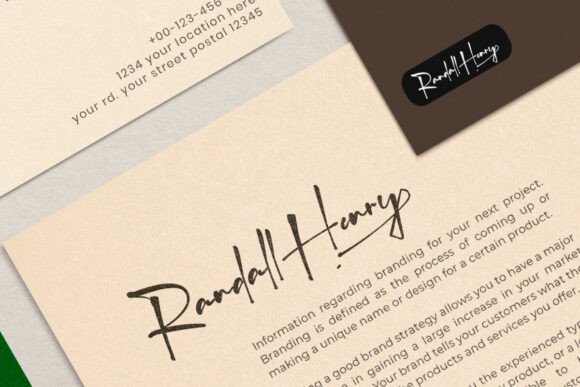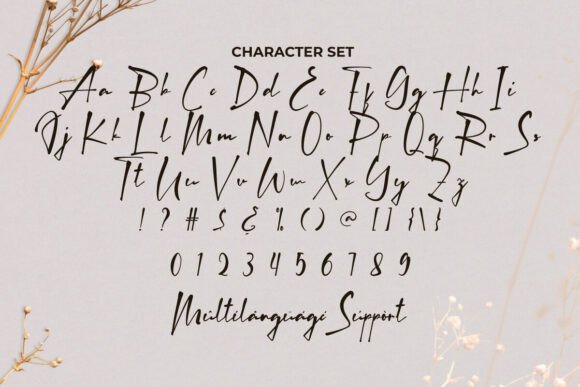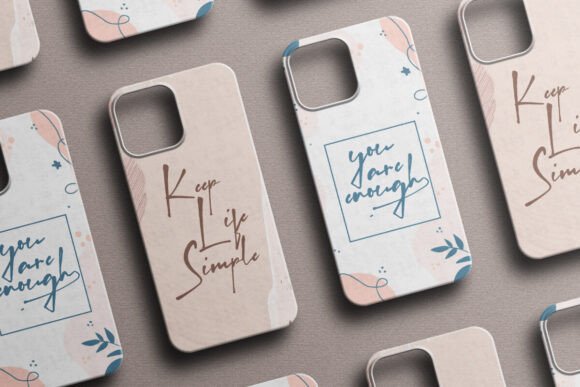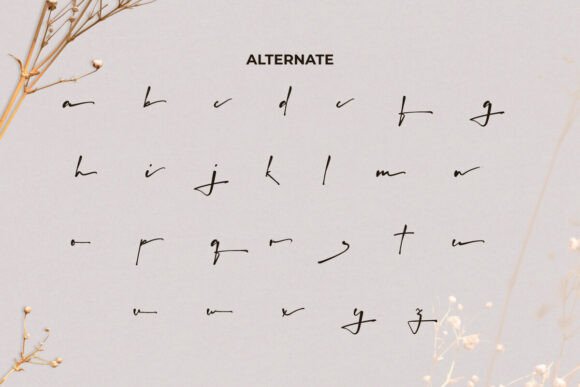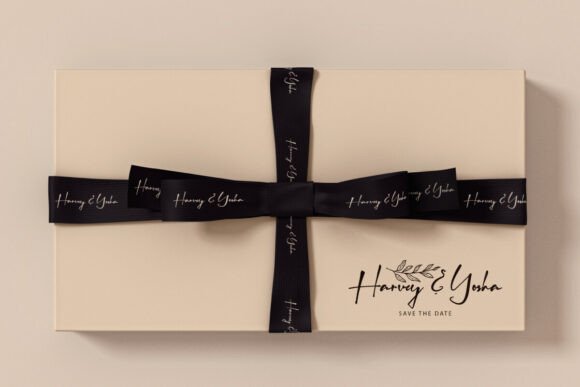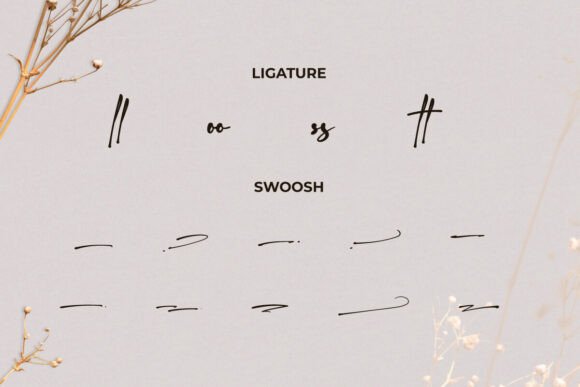
Introduction to Randall Henry Font
As a designer, have you ever found yourself pouring your heart and soul into a project, only to have it get lost in the sea of generic fonts? The struggle is real, but what if you had a secret weapon to elevate your designs and make them truly stand out? Enter Randall Henry Font, an elegant signature handwriting font that’s about to become your new BFF.
With its heavy ink pen writing and firm lines, Randall Henry Font is the perfect addition to any creative project. Whether you’re working on a beauty product brochure, an event invitation, or a wedding program, this font is sure to bring a touch of sophistication and class to your design. And the best part? It’s a high-quality, free download that’s waiting to be discovered.
So why is Randall Henry Font so valuable to designers? For starters, its transparent background makes it easy to work with, and its elegant style is versatile enough to fit seamlessly into any industry or design style. Whether you’re a seasoned pro or just starting out, this font is a must-have in your design resource arsenal.
Key Features of Randall Henry Font
- High-quality font design suitable for creative projects and presentations.
- Transparent background, allowing for easy layering and customization.
- Designed by a professional typographer, ensuring a unique and stylish aesthetic.
- Perfect for use in digital design, including web design, graphic design, and print materials.
Honest Review: Randall Henry Font
I recently had the chance to work with the Randall Henry Font, and I must say it’s been a game-changer for my creative projects. The font is absolutely stunning, with a high quality that’s perfect for making a lasting impression.
- ✨ Customizable and versatile, making it ideal for a wide range of creative projects.
- ✨ Features a transparent background, allowing for seamless integration into any design.
- ⚠️ Limited availability of supported languages, which may be a concern for international projects.
- ⚠️ Some users may find the font’s unique design style to be too bold or overpowering.
Overall, I’m thoroughly impressed with the Randall Henry Font. Its unique design and high quality make it a valuable addition to any designer’s toolkit. If you’re looking for a font that will elevate your creative project, I highly recommend giving it a try.
How to Use Randall Henry Font
The Randall Henry Font is a high-quality design resource ideal for creative projects that require a unique touch. This versatile font can be used in various applications, including digital graphics and print materials.
Tips for Getting the Most Out of Randall Henry Font
To get the most out of the Randall Henry Font, consider the following tips:
- Use it with a transparent background to create a modern and sleek look.
- Combine it with other design elements to create a unique and eye-catching design.
- Experiment with different font sizes and styles to add depth and visual interest.
The Randall Henry Font is ideal for various design projects, including:
- Social media graphics and advertisements
- Print materials such as business cards and brochures
Alternatives to Randall Henry Font
Great Vibes Font is a high-quality, elegant script font suitable for creative projects such as wedding invitations, branding materials, and advertisements. It features a transparent background and is available for free download. Great Vibes Font is ideal for designers looking for a sophisticated and stylish font to enhance their designs.
Compared to Randall Henry Font, Great Vibes Font has a more refined and polished look, making it suitable for formal and high-end projects. However, Randall Henry Font has a more playful and whimsical feel, making it better suited for casual and creative projects.
Alex Brush Font is a beautiful, handwritten font perfect for designers working on creative projects that require a personal and artistic touch. It features a transparent background and is available for free download. Alex Brush Font is ideal for designers looking for a unique and elegant font to add a touch of sophistication to their designs.
Yes, the Randall Henry Font supports transparent backgrounds, making it ideal for designs that require a high level of customization and creativity. The font’s transparent background feature allows you to easily combine it with other design elements and create unique visual effects.